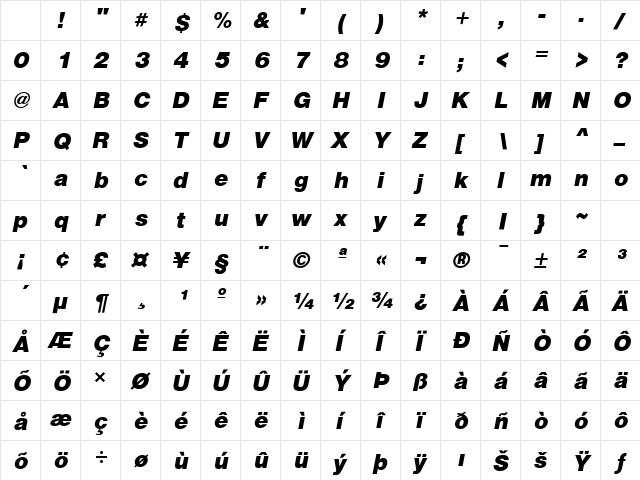
HelvBlack is a composed and adaptable typeface that performs quietly and consistently across a wide range of design contexts. The slanted form adds forward momentum and visual energy.
Pro Tip: Use HelvBlack for emphasis, pull quotes, and subheadings where its slanted energy can add rhythm to the layout.